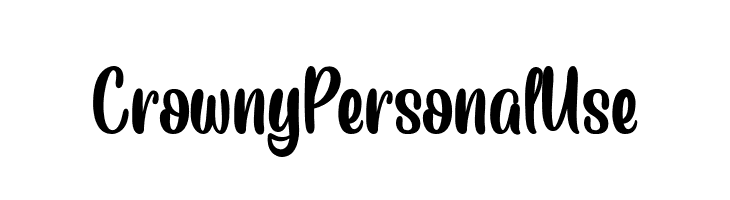
A cross-stitch styled font with an embroidered, handcrafted appearance.
A playful, handwritten font with irregular strokes and a casual style.
( Crosterian is a geometric slab serif typeface inspired by Tuscan typefaces )
A bold, geometric font with sharp edges and a strong presence.
A bold, abstract font with irregular, splattered letterforms.
A bold, italicized font with jagged, brush-like strokes for a dynamic look.
A playful, bold, and hand-drawn font with a graffiti-like style.
A decorative font with arrow-like embellishments and a tribal-inspired design.